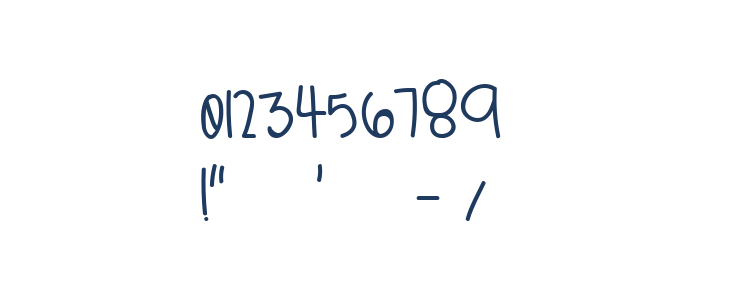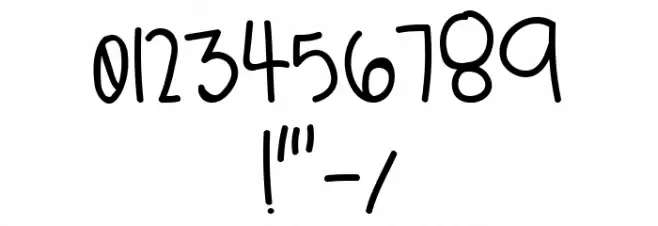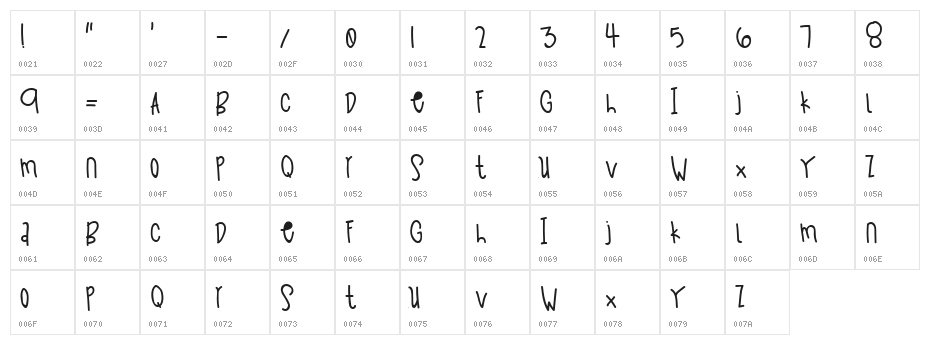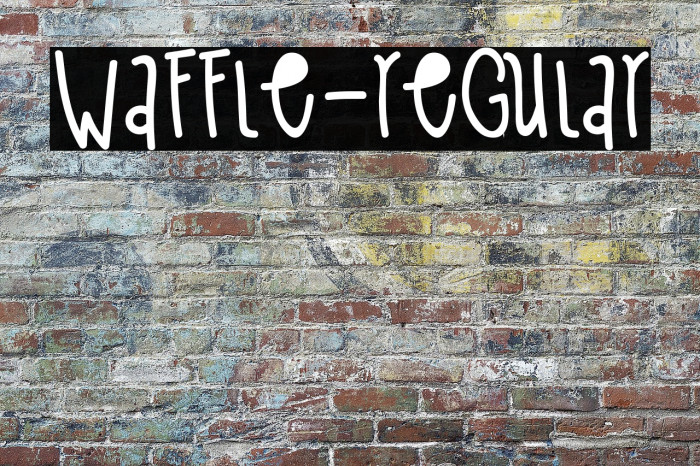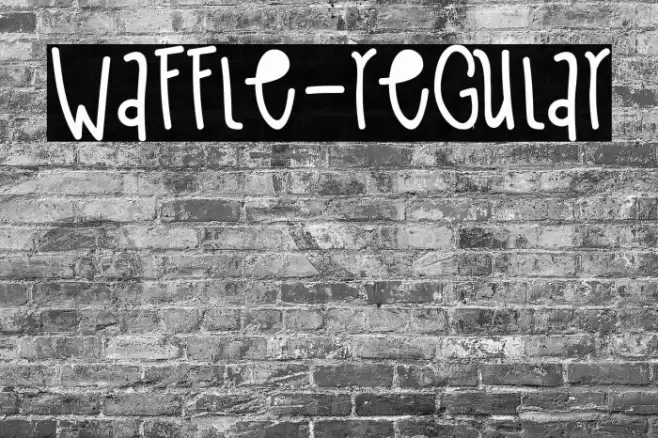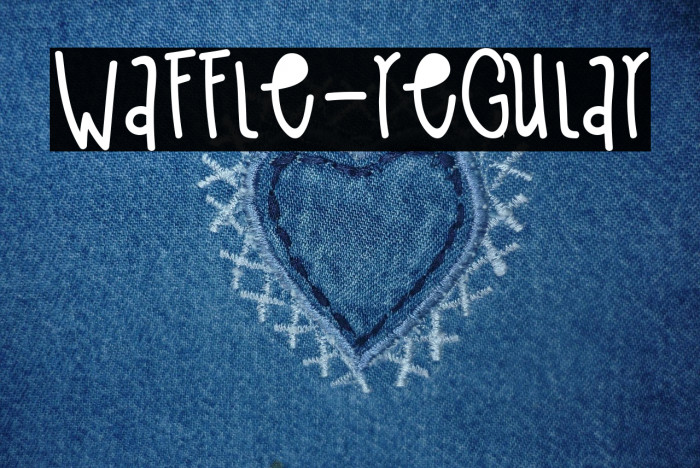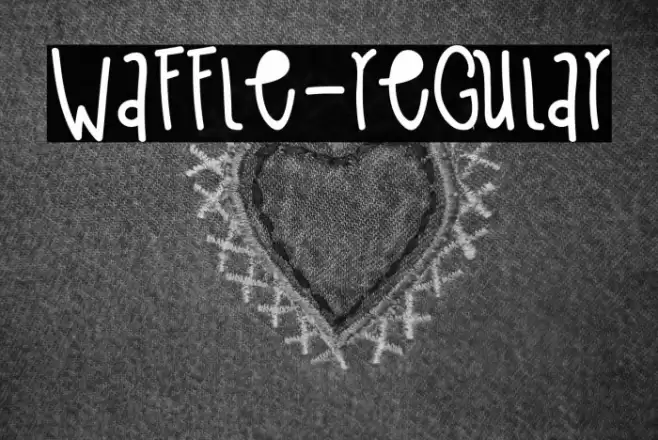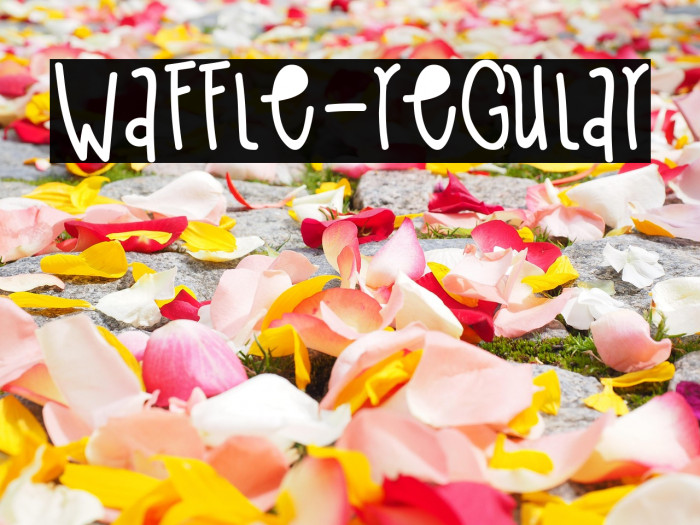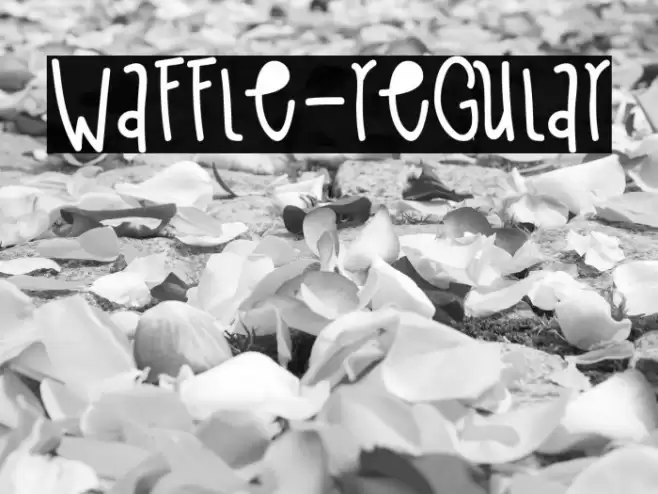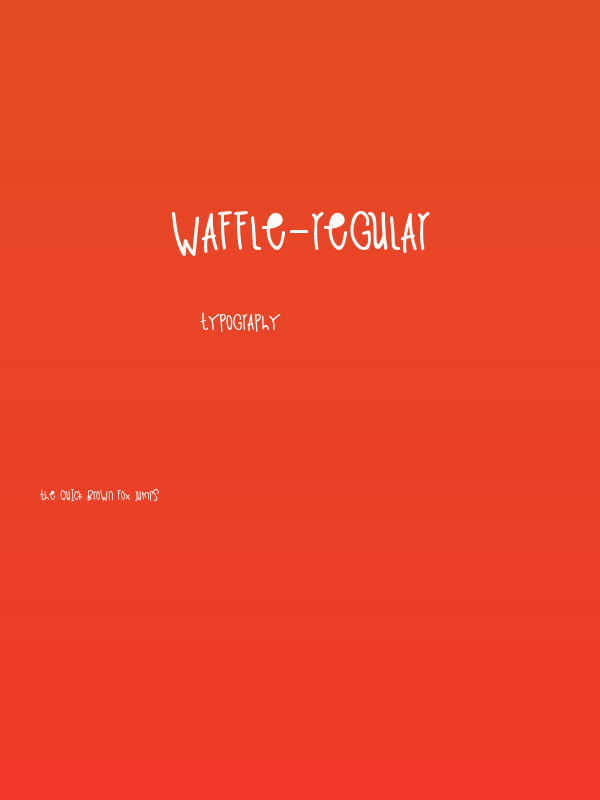
Waffle-Regular Font
Waffle-Regular Description
This playful and whimsical font features a handwritten style with a casual, friendly appearance. The letters are slightly irregular, adding to its charm and making it feel approachable and informal. The strokes are consistent in width, giving it a uniform look despite its quirky nature. The characters have a slight slant, contributing to a dynamic feel, while the rounded edges soften the overall appearance. This font is perfect for projects that require a personal touch, such as greeting cards, children's books, or playful branding. Its unique style stands out, making it ideal for creative and artistic applications.
| Proposed Projects | Greeting cards, children's books, playful branding, creative projects. |